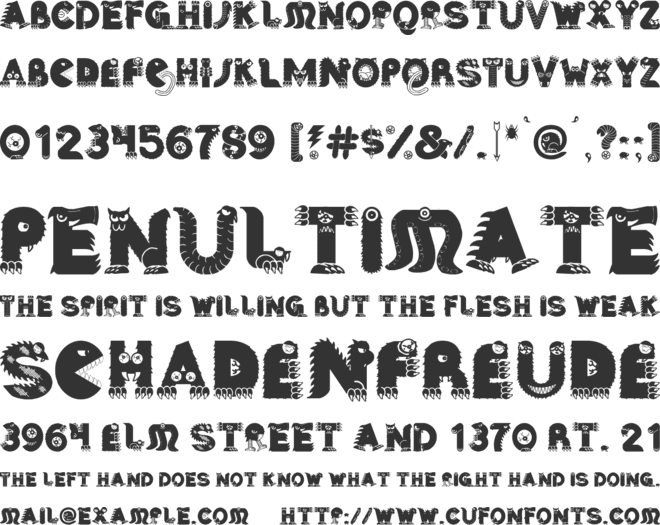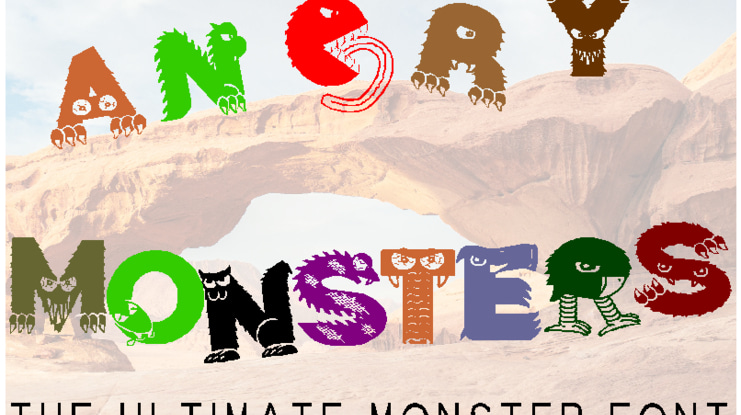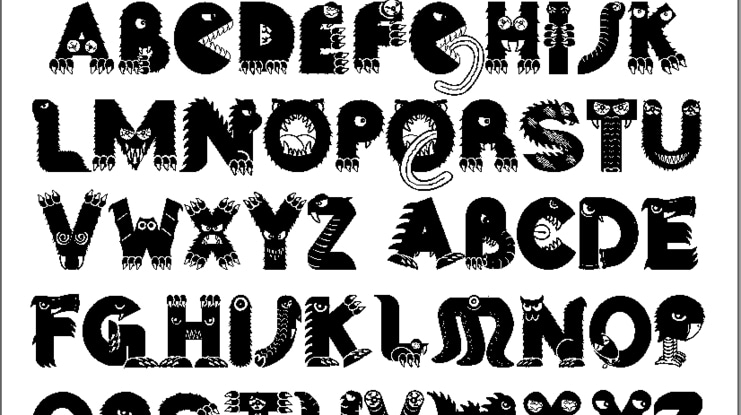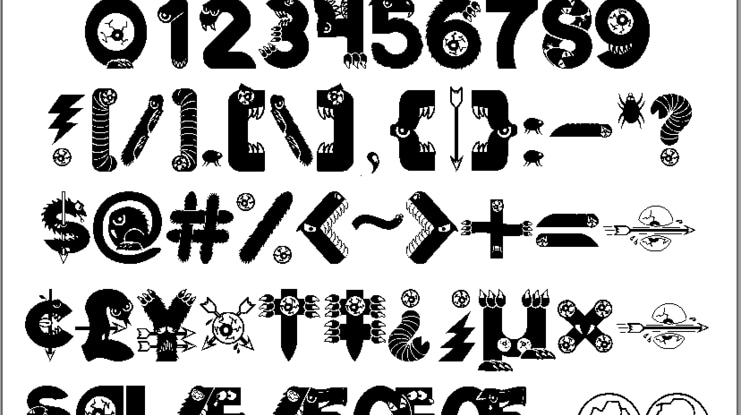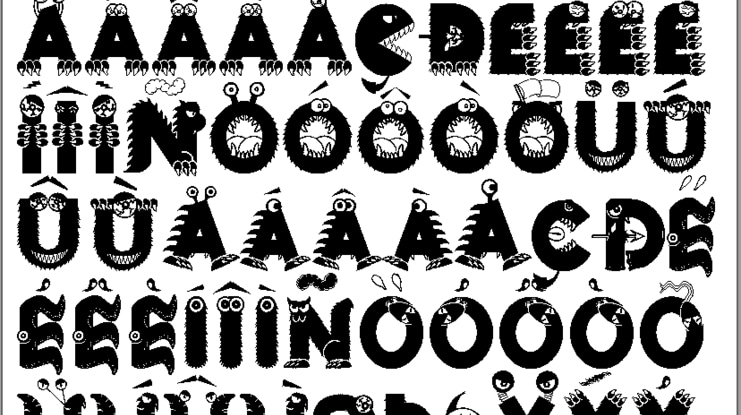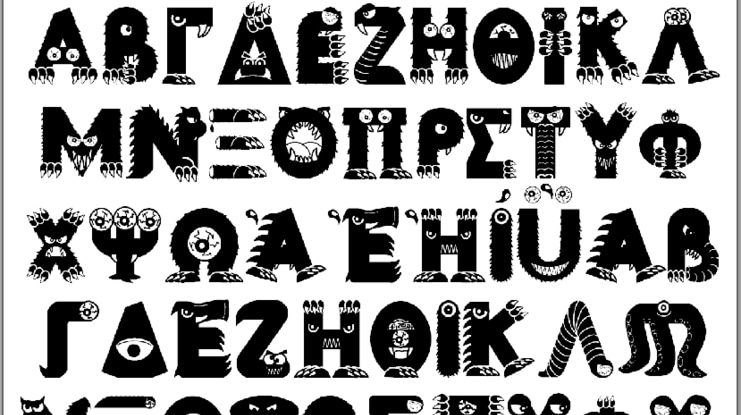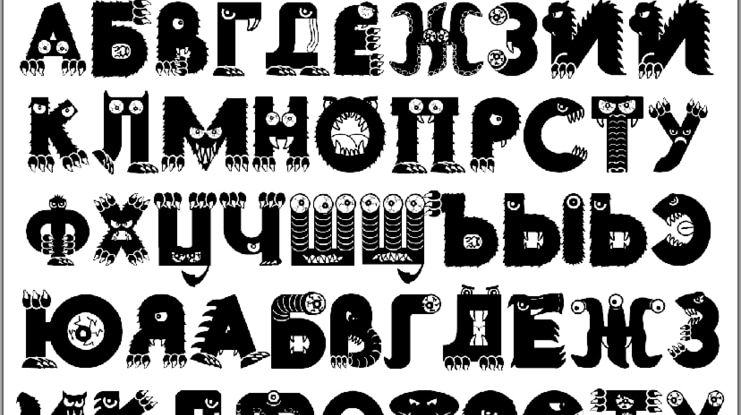
Angry Monsters Font
This font is made up of cute little "angry monsters" that will make you smile. Enjoy. (Alternate characters in the lower case, plus check out accented characters, Greek and Cyrillic for even more monsters. 600 characters in all!